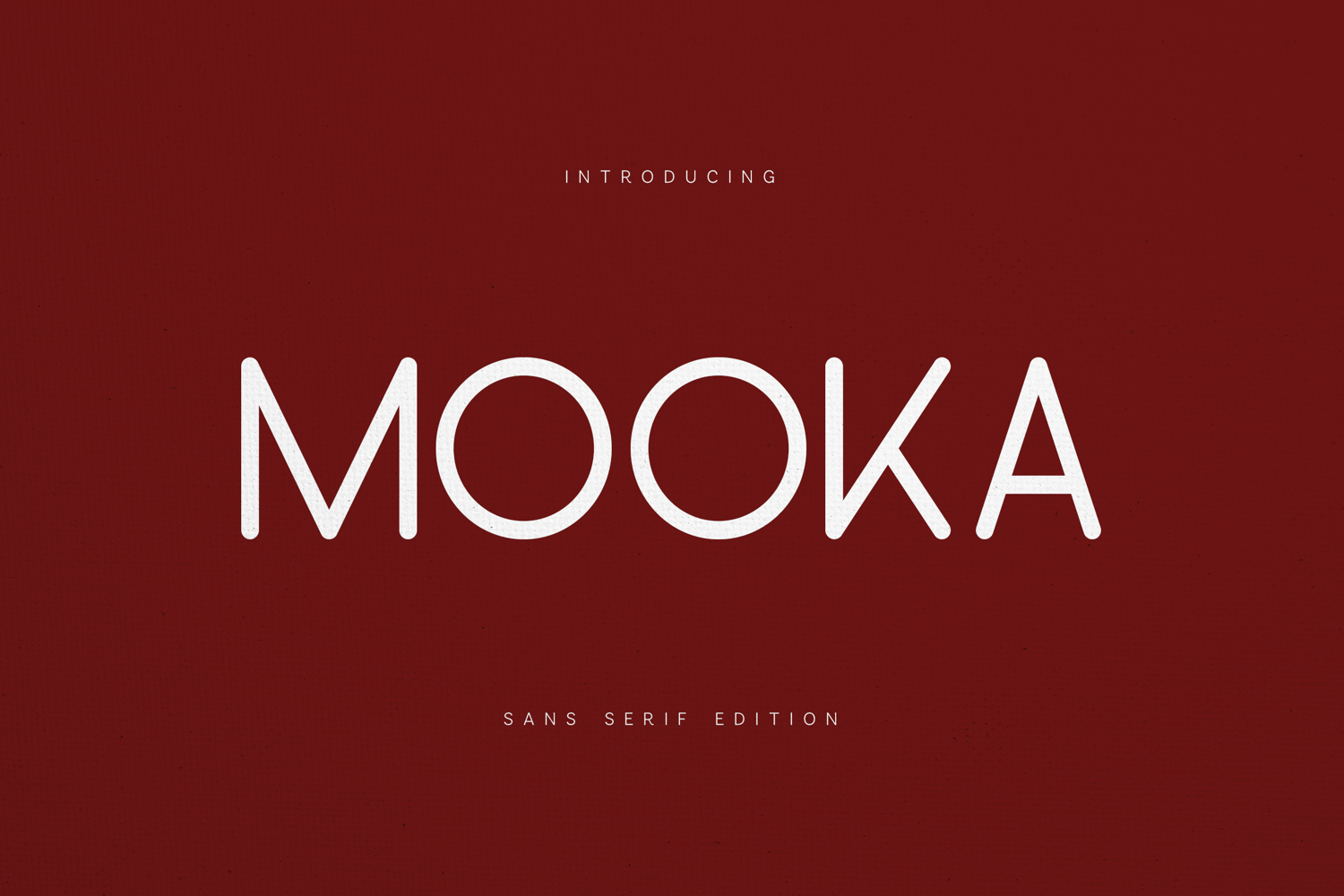
Mooka Modern Sans Serif Font | Minimal Geometric
Mooka is a modern sans serif font designed with clean geometric shapes, rounded terminals, and a minimalist aesthetic. Combining contemporary elegance with exceptional readability, this versatile typeface is perfect for branding, logo design, editorial layouts, packaging, websites, social media graphics, presentations, mobile applications, and modern marketing materials.
Its balanced proportions and refined letterforms create a sophisticated visual presence that feels both friendly and professional. Mooka works beautifully for luxury brands, technology companies, fashion labels, creative agencies, startups, lifestyle products, architecture studios, and corporate identity systems.
Designed for designers who appreciate simplicity and precision, Mooka delivers a timeless modern look while maintaining excellent legibility across both print and digital applications. The font includes uppercase and lowercase letters, numbers, punctuation, multilingual support, and carefully crafted glyphs suitable for international projects.
Whether you're creating logos, magazine headlines, website interfaces, packaging designs, social media content, business presentations, or modern brand identities, Mooka provides a clean and contemporary typographic foundation that elevates every design.
- Modern Sans Serif Typeface
- Geometric Letterforms
- Rounded Terminal Design
- Uppercase & Lowercase Characters
- Numbers & Punctuation
- Logo & Branding Ready
- Clean Minimalist Style
- Print & Web Friendly